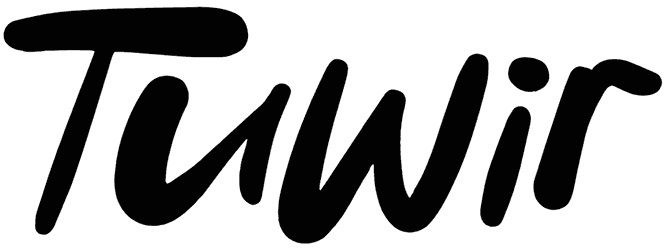
Tuwir Font
Immerse yourself in personal spaces by downloading Tuwir and create human-themed designs you’ll be proud of. This script font is one of the options that can make novelty in your collection and soon become one of your favorite fonts for implementing various projects.
The writing style of this handwritten font is designed in such a way that it is written in a hurry and can give you artistic freedom in social media posts, t-shirts, and invitations.